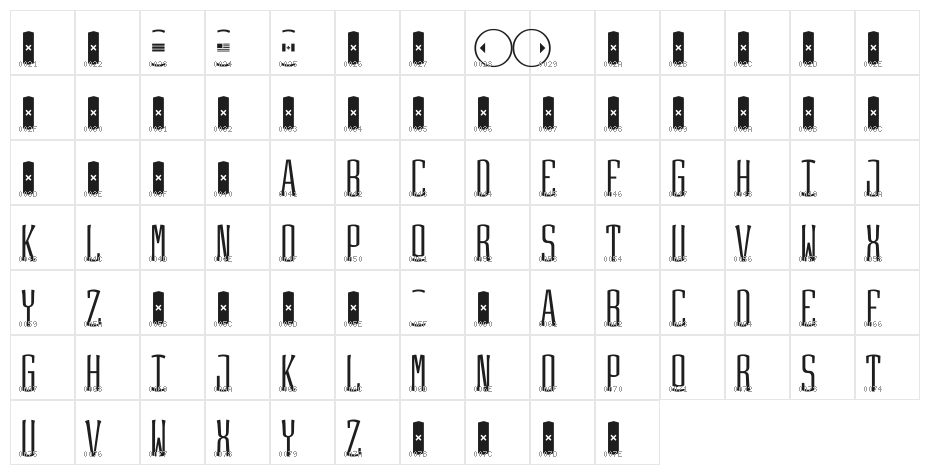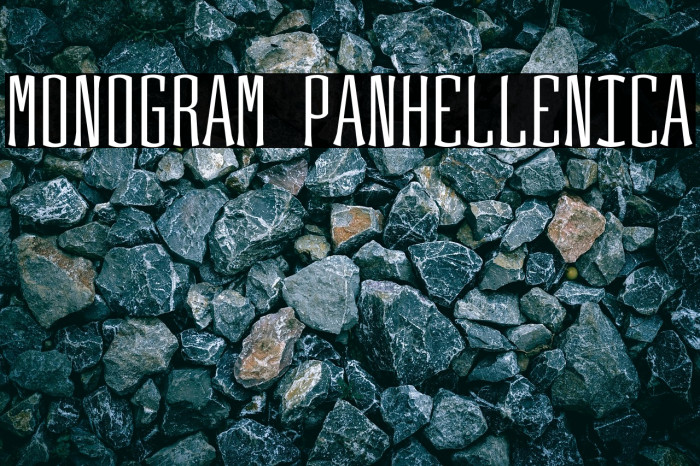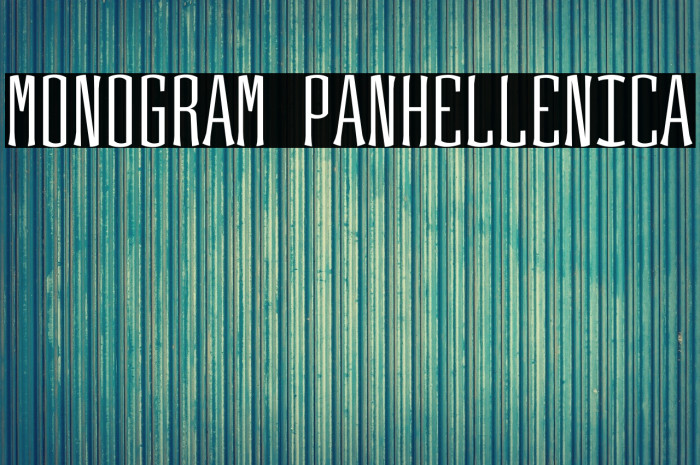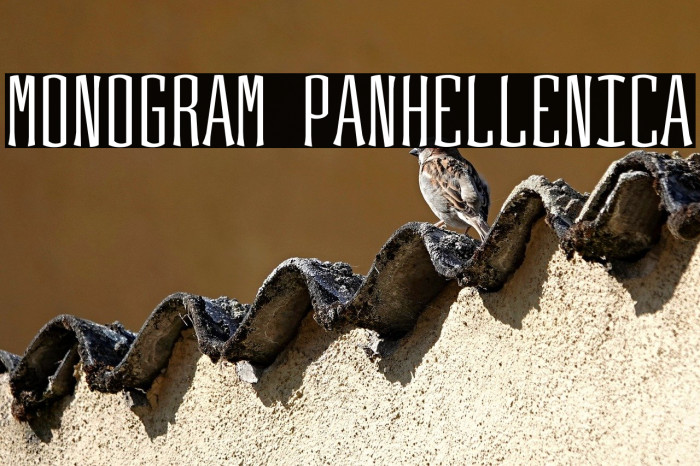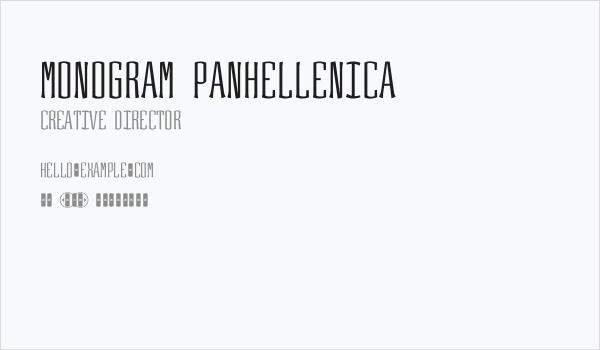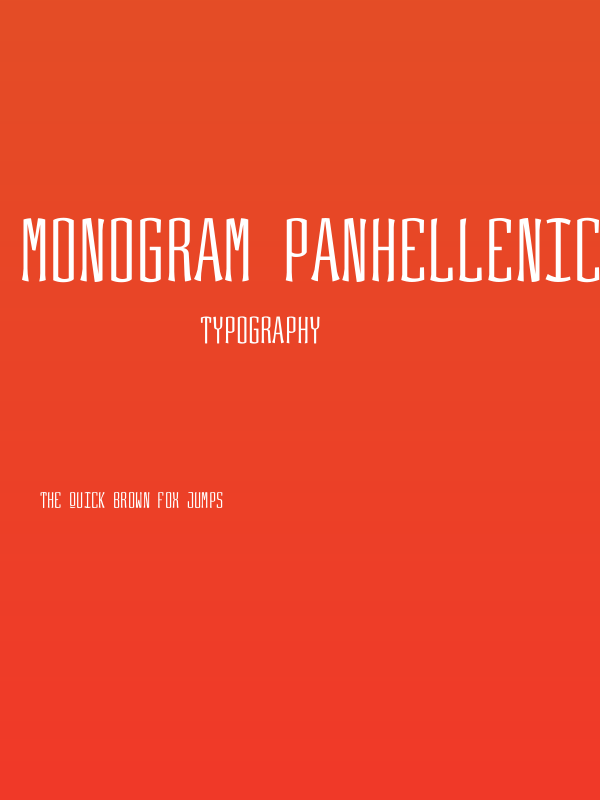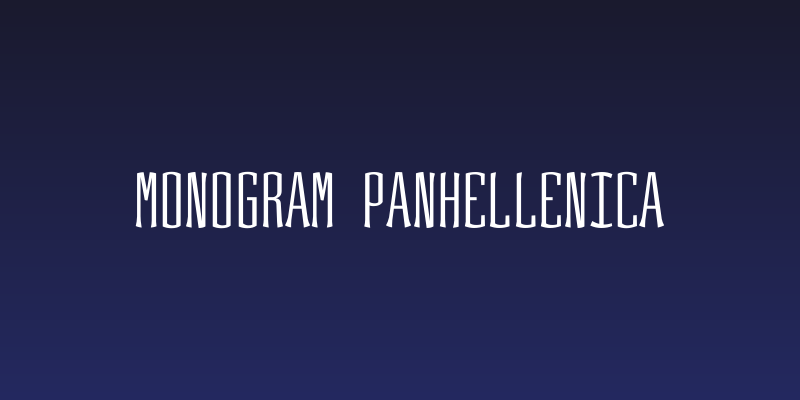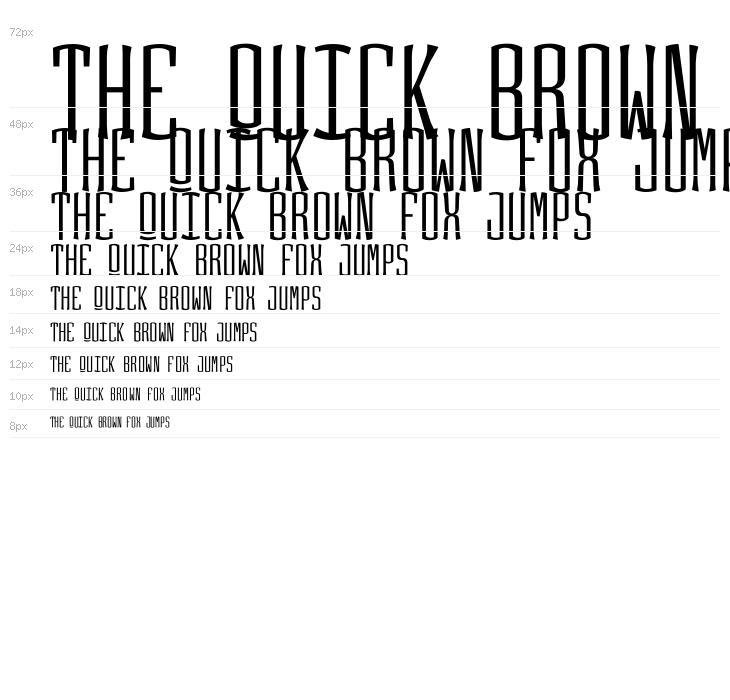
Monogram Panhellenica Font
Monogram Panhellenica Description
This font features a bold and geometric design with a strong emphasis on vertical lines and sharp angles. The characters are tall and narrow, giving it a condensed appearance. The uppercase letters are particularly striking, with a uniform height and consistent stroke width. The design incorporates a modern aesthetic with a hint of vintage flair, making it suitable for eye-catching displays. The special characters and numerals maintain the same bold style, ensuring consistency across all elements.
| Proposed Projects | Ideal for branding, posters, and signage where a strong visual impact is desired. |